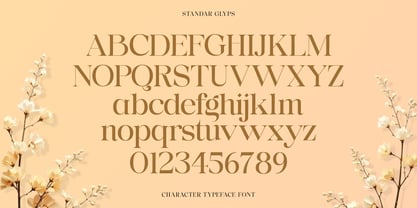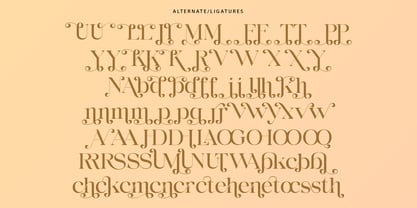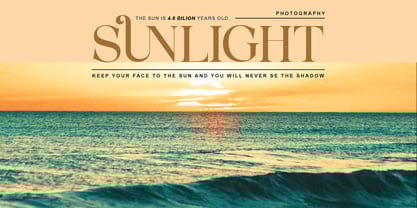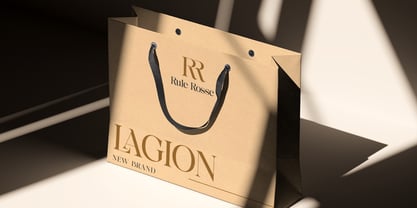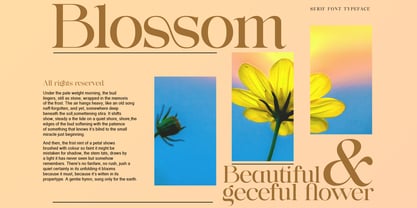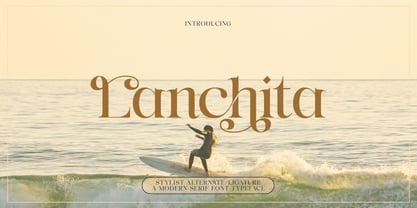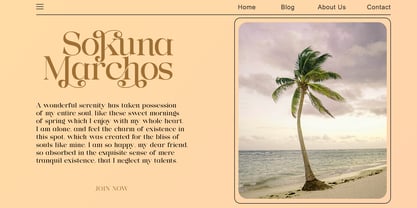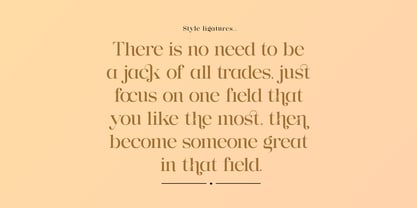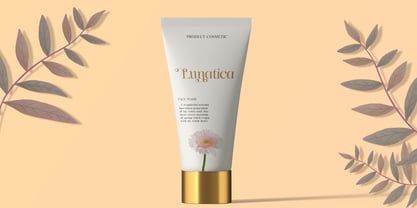
Lanchitas
by Gatype
The Lanchitas Font Family was designed by khaidir and published by Gatype. Lanchitas contains 1 styles. More about this family
Lanchitas is a classic serif family that has a modern, luxurious, and glamorous look. You can use this font family for various purposes such as wedding invitations, logos, and branding. And if you are looking for a timeless serif look, this font might be the one for you. Lanchitas also supports multiple languages!
Lanchitas serif style is a modern Display font, each letter is carefully crafted to make your text look unique.